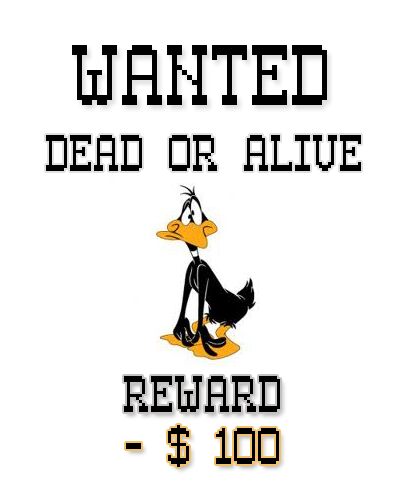
Old Pixel-7 from Style-7 is a free pixel font with the spare, upright character of an early computer terminal. Its letters are tall and mostly narrow, with open interiors and a light, even weight. Abrupt notches and compact bends give several forms a slightly improvised look.
Retro game studios and electronics brands could use it for interface graphics and packaging. It also fits event posters built around arcade culture or vintage computing. Across these uses, the narrow proportions and stripped-back shapes connect the lettering directly to old screen graphics.
Old Pixel-7